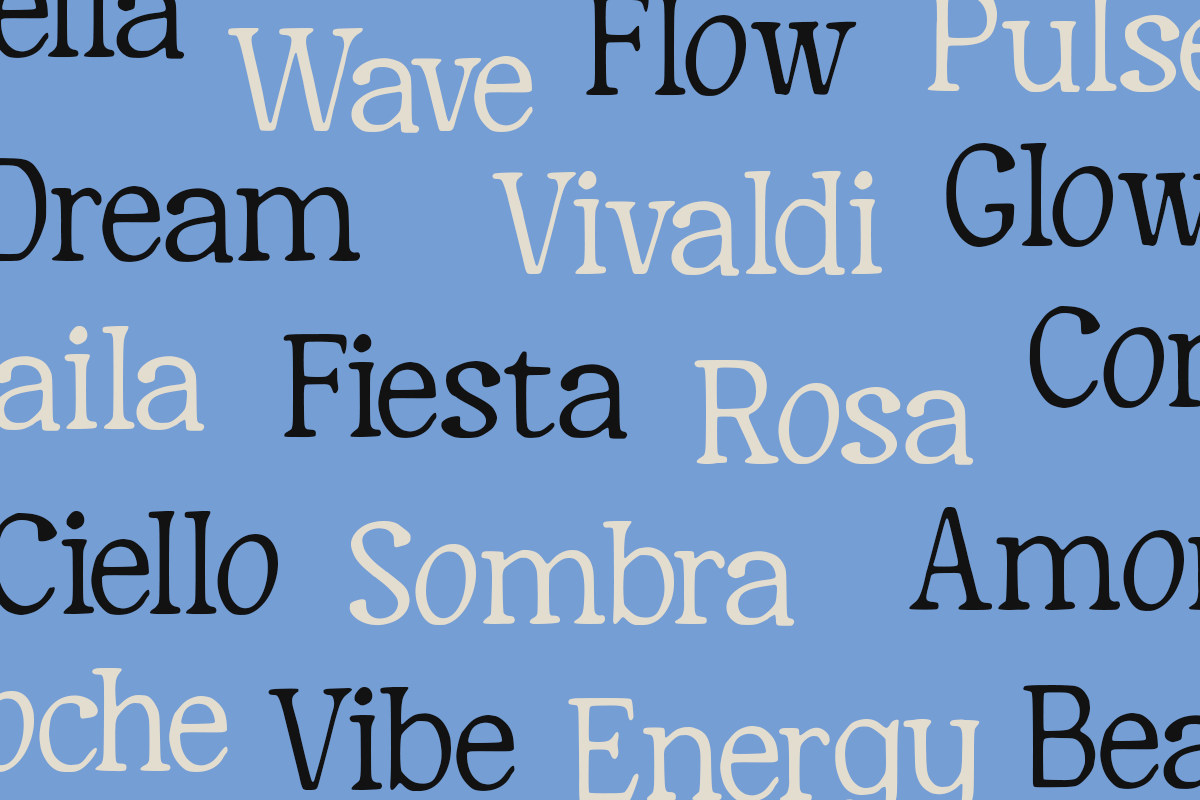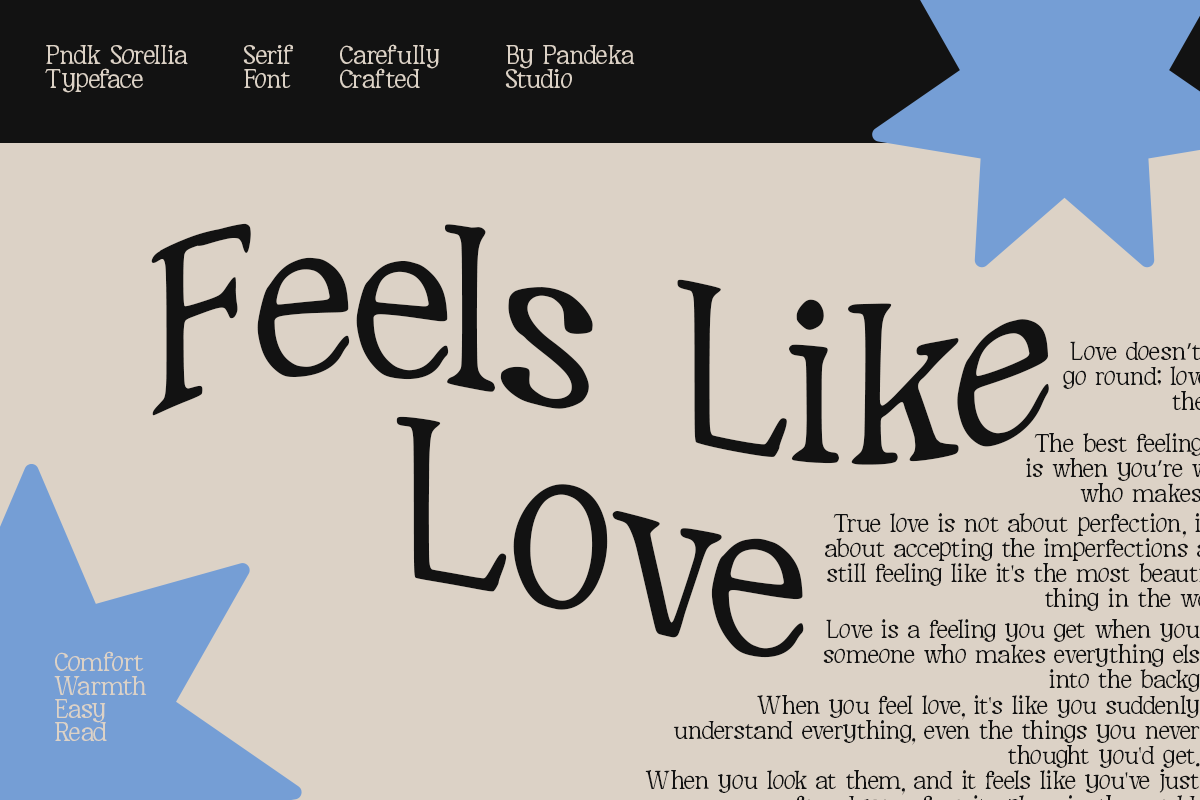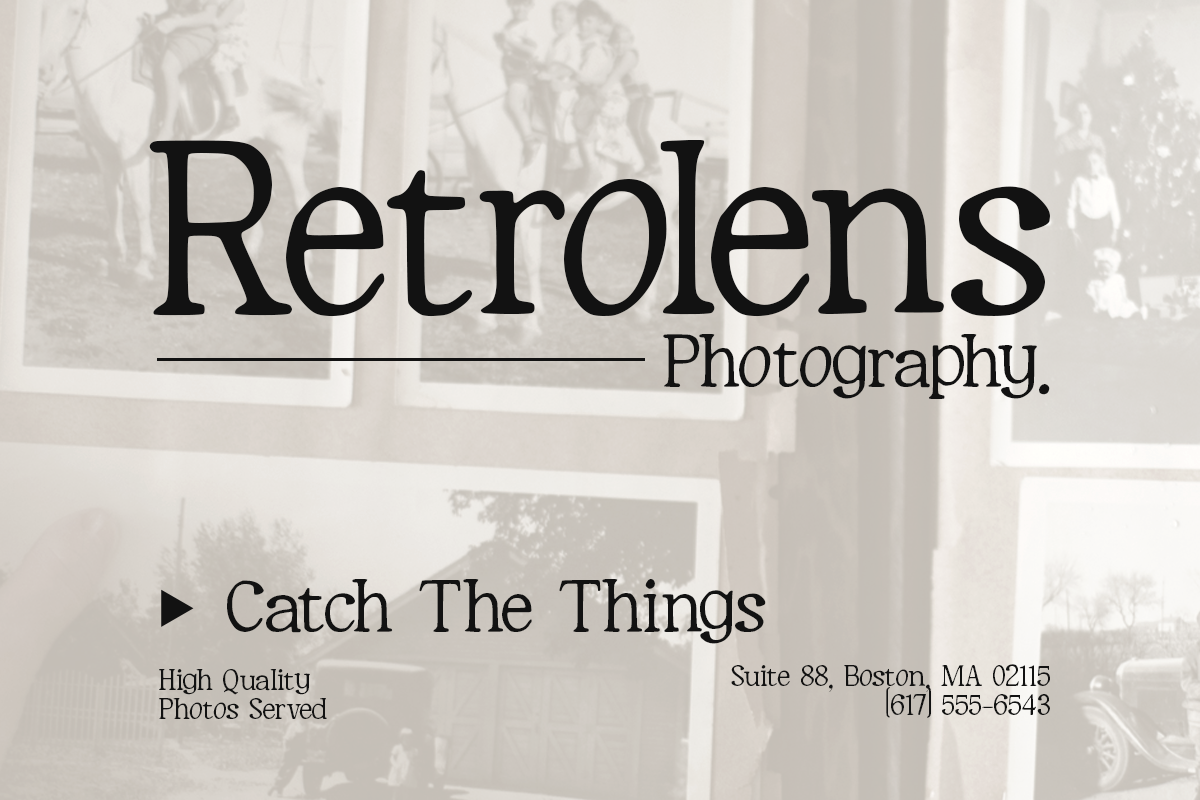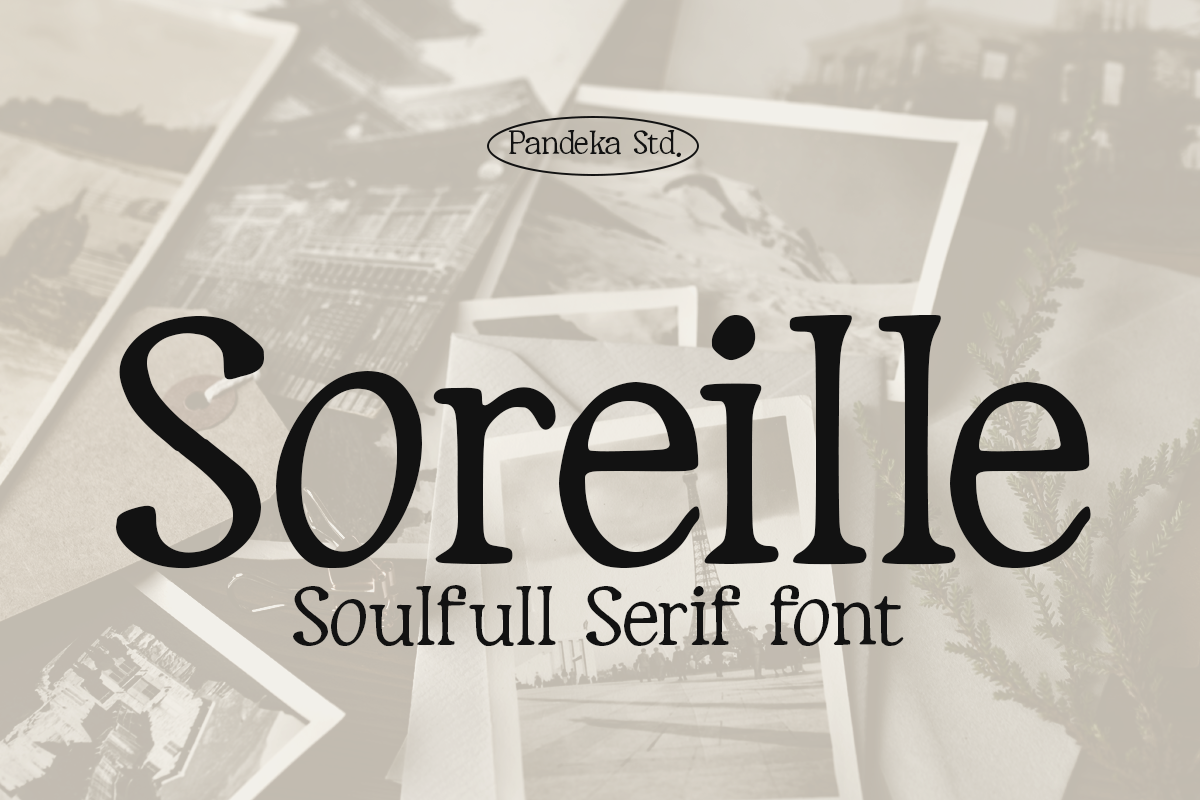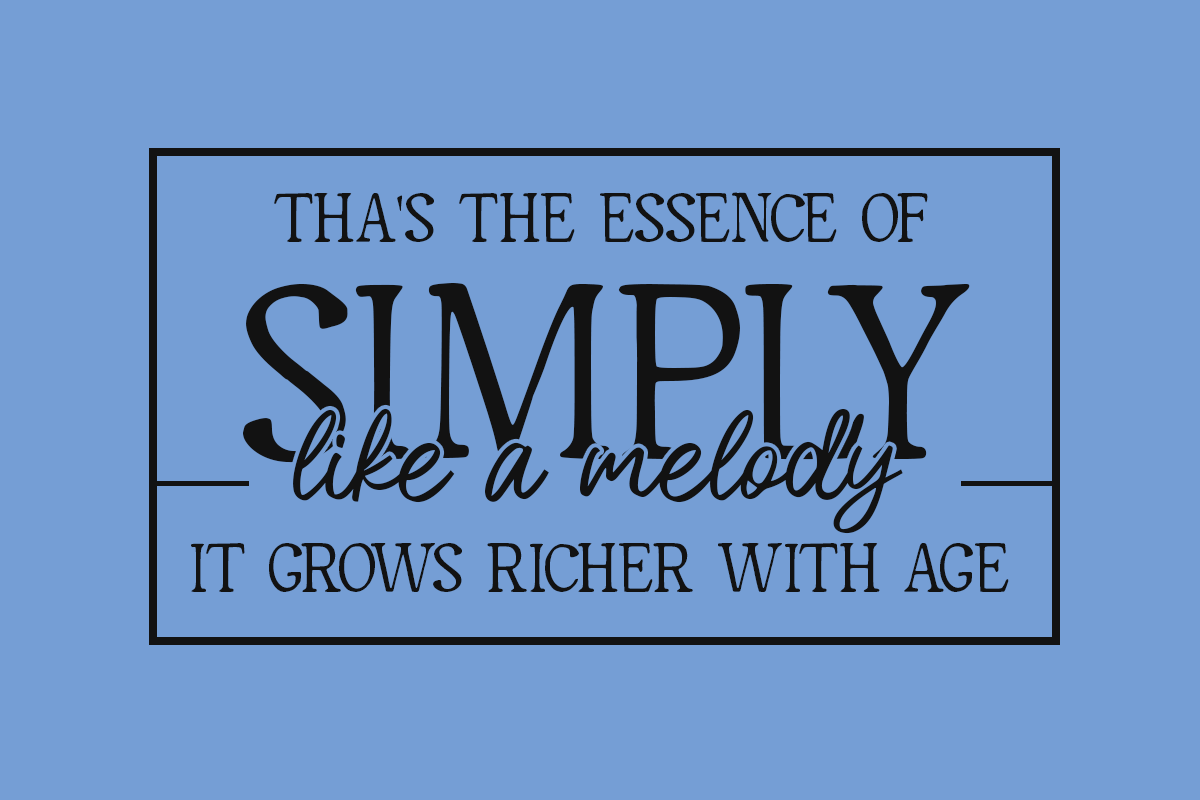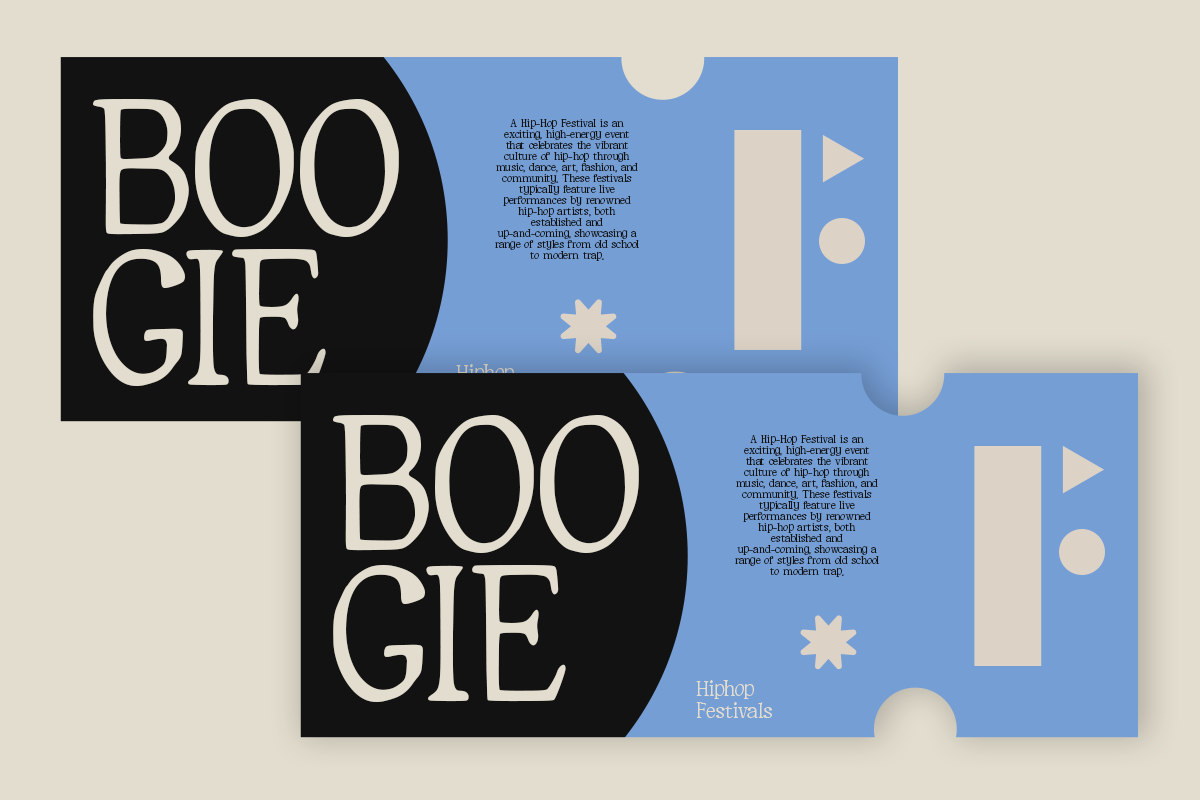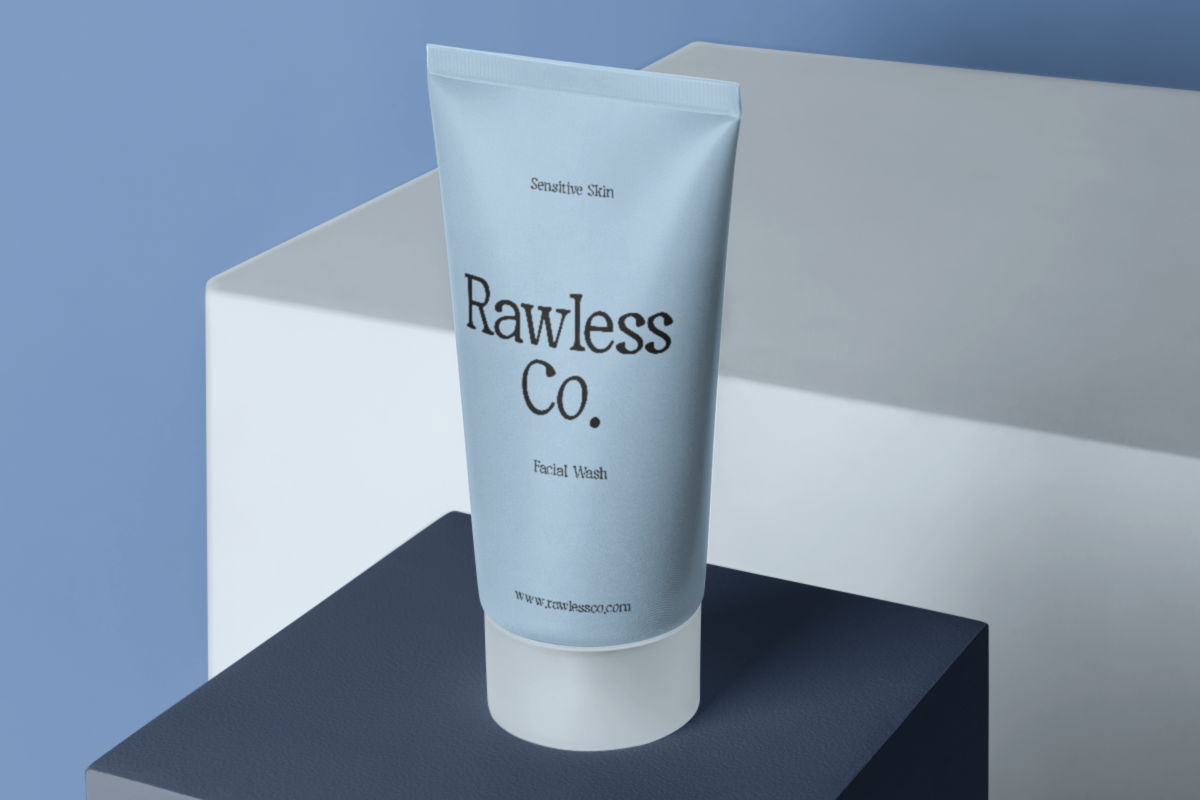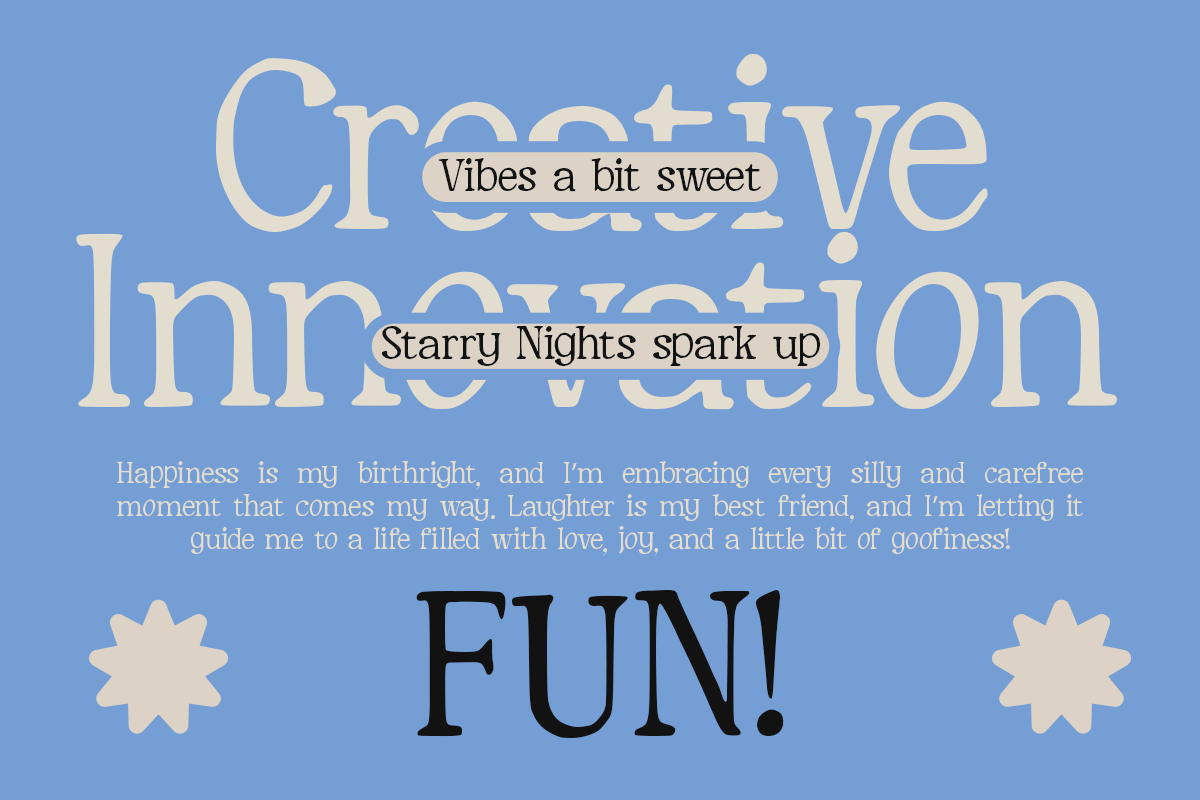
Soreille - Soulful Serif Font
Soreille – Soulful Retro Serif Font
Soreille is a soulful serif font that blends bold letterforms with soft, rounded edges, evoking a warm aesthetic and timeless design inspired by the 90s retro era. Perfect for elegant typography, artistic lettering, classic branding, editorial layouts, packaging, vintage posters, and nostalgic event designs, Soreille adds a unique and charming touch to any project.
Embrace retro elegance with Soreille! ✨